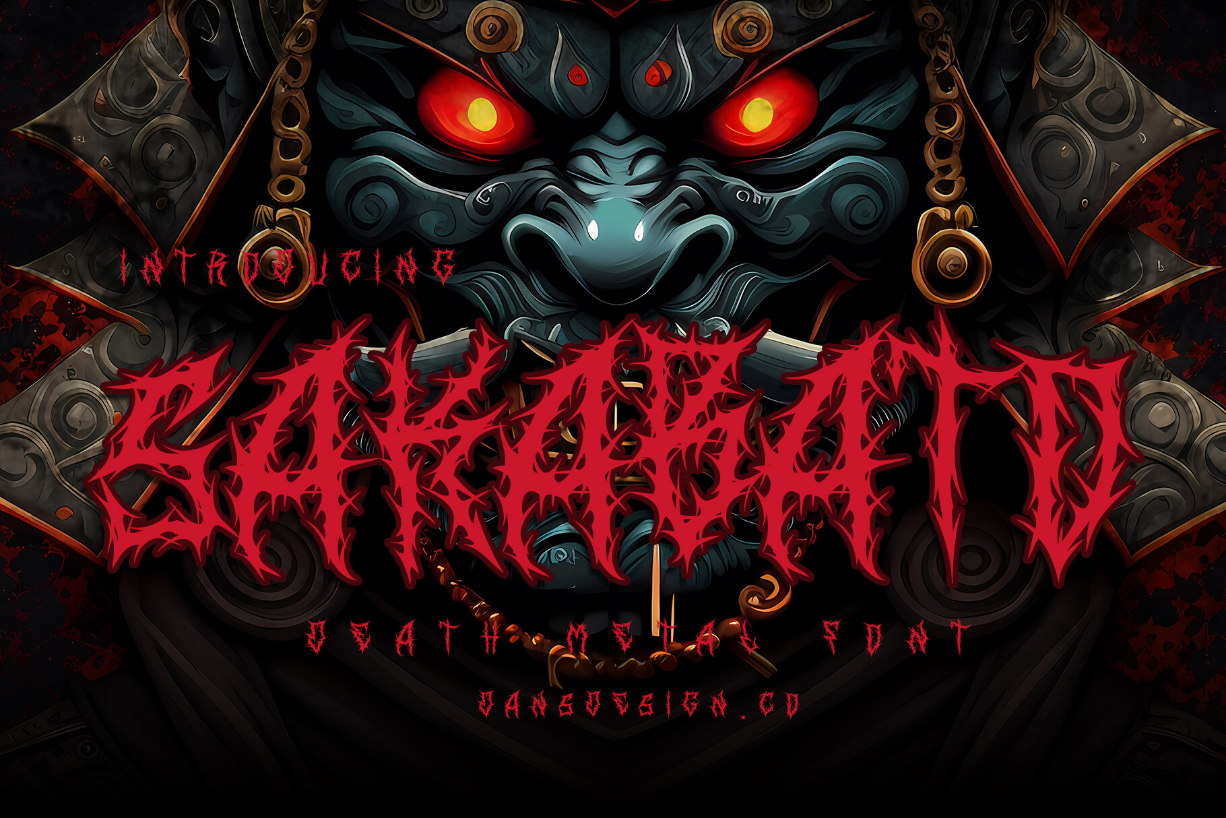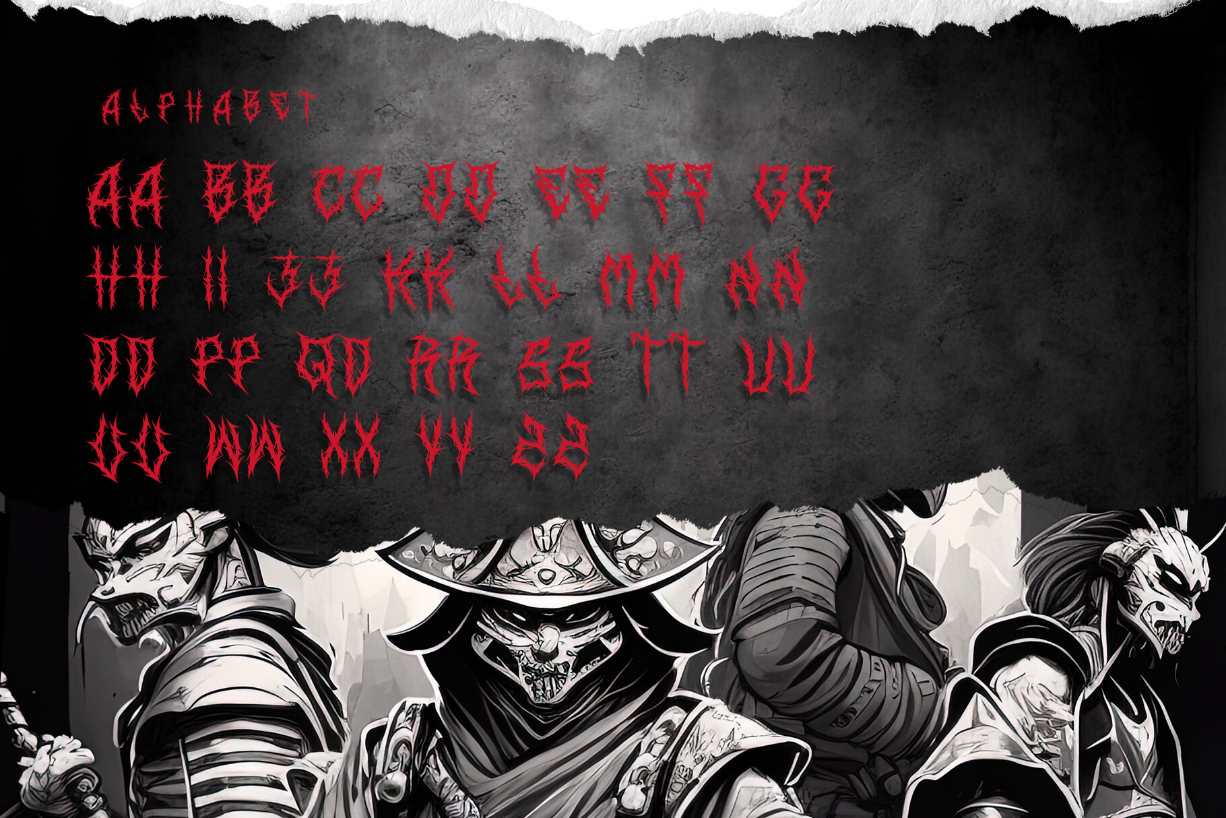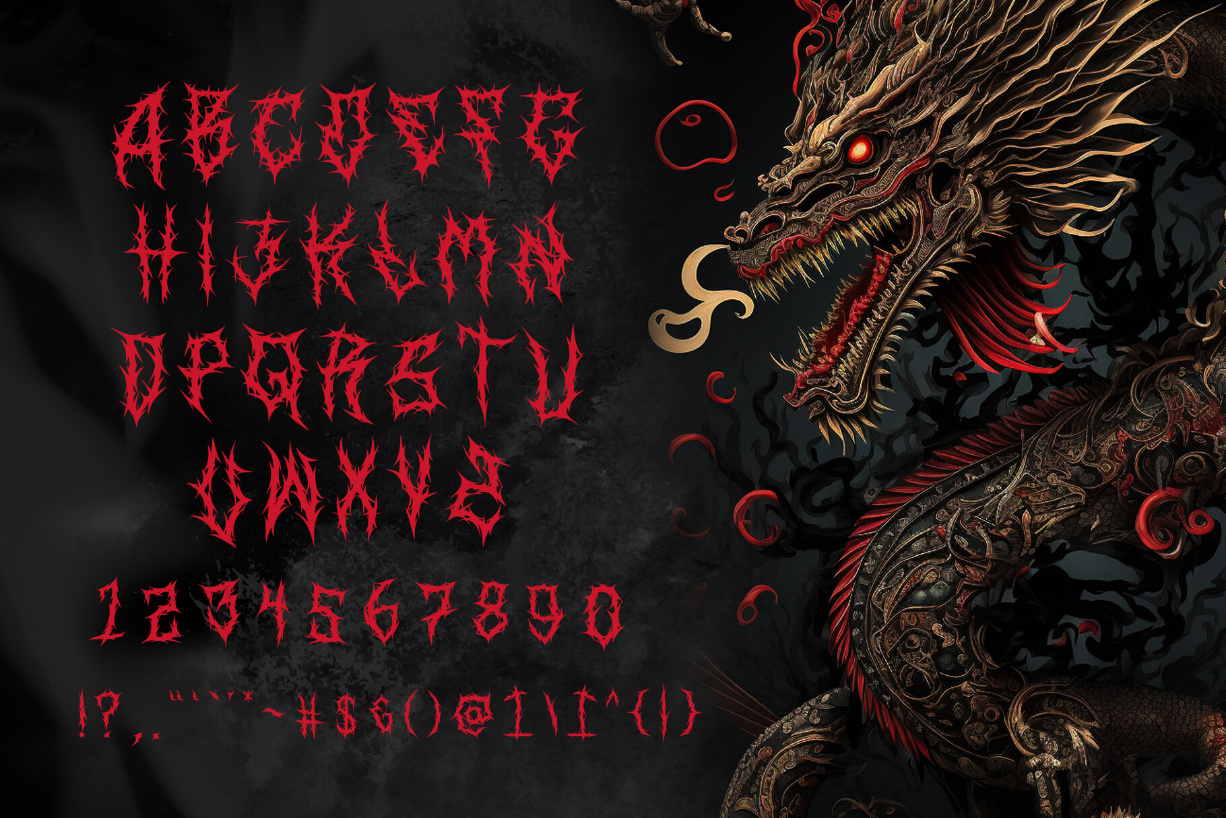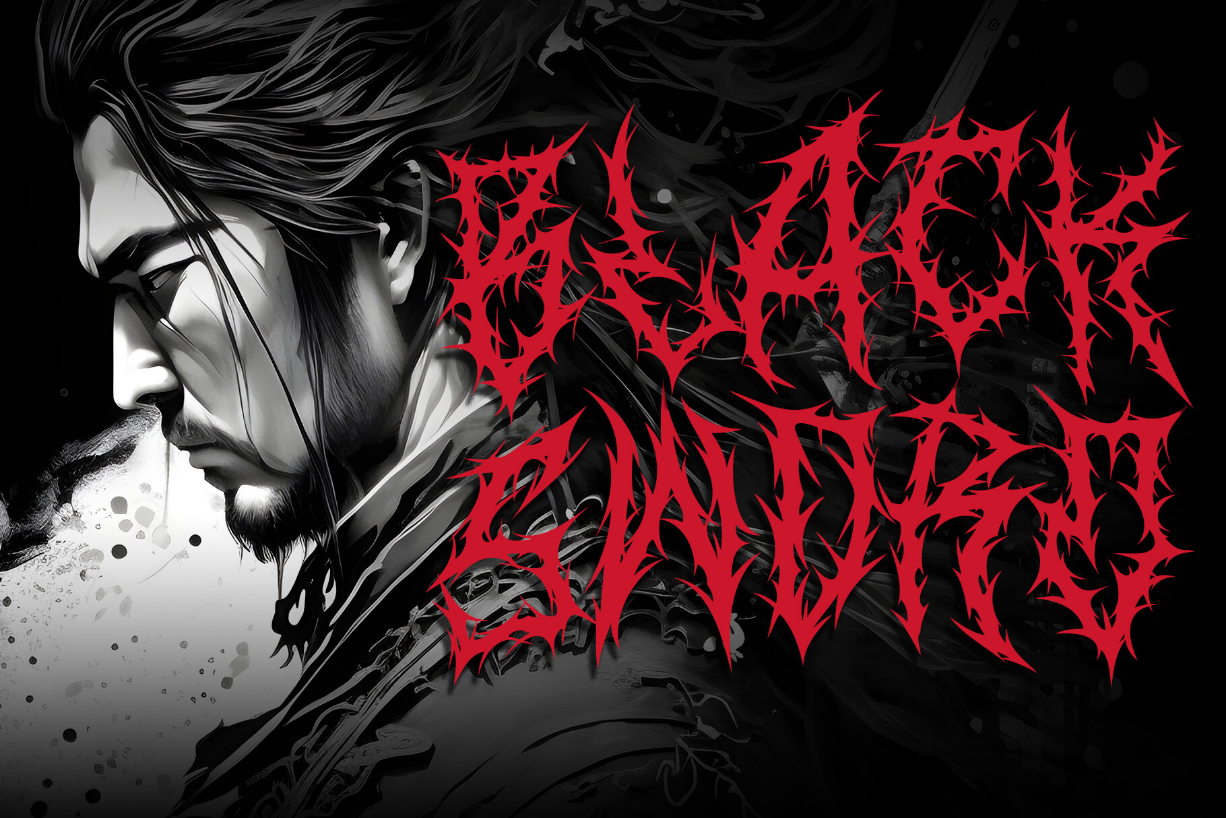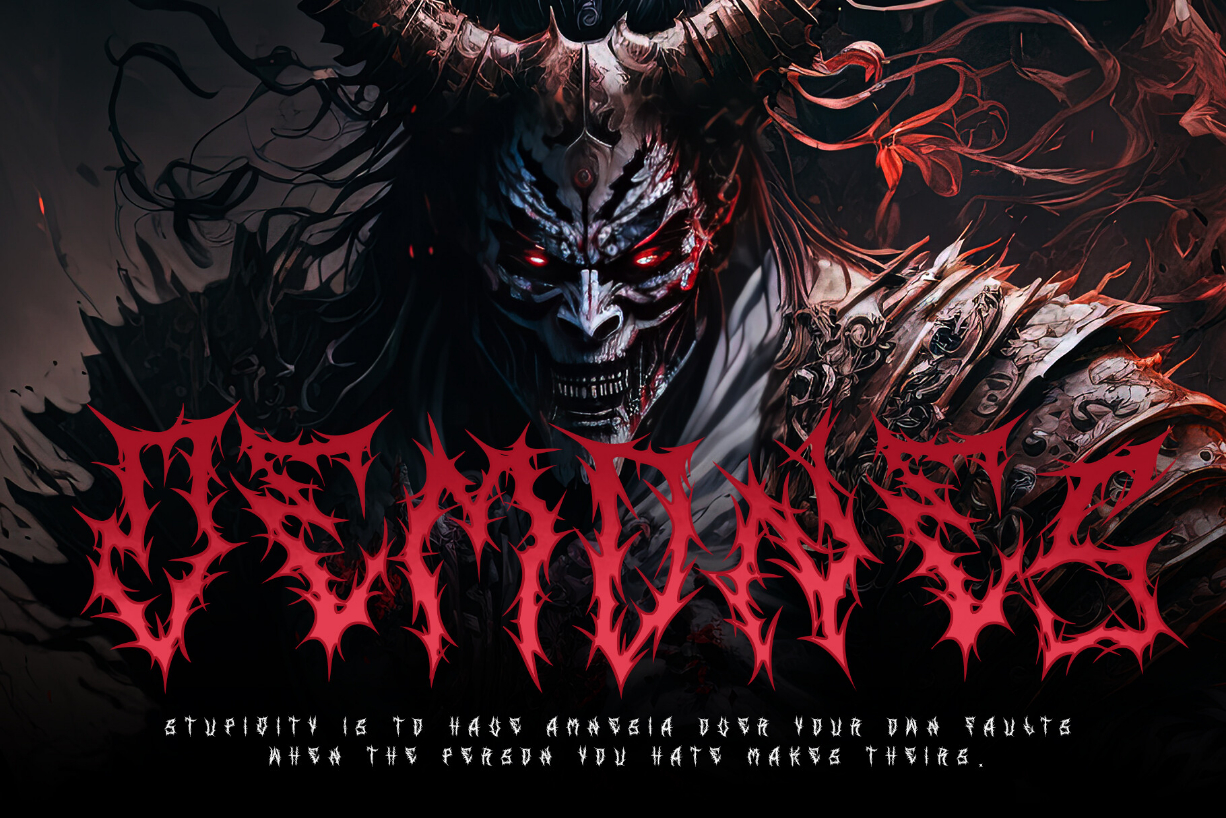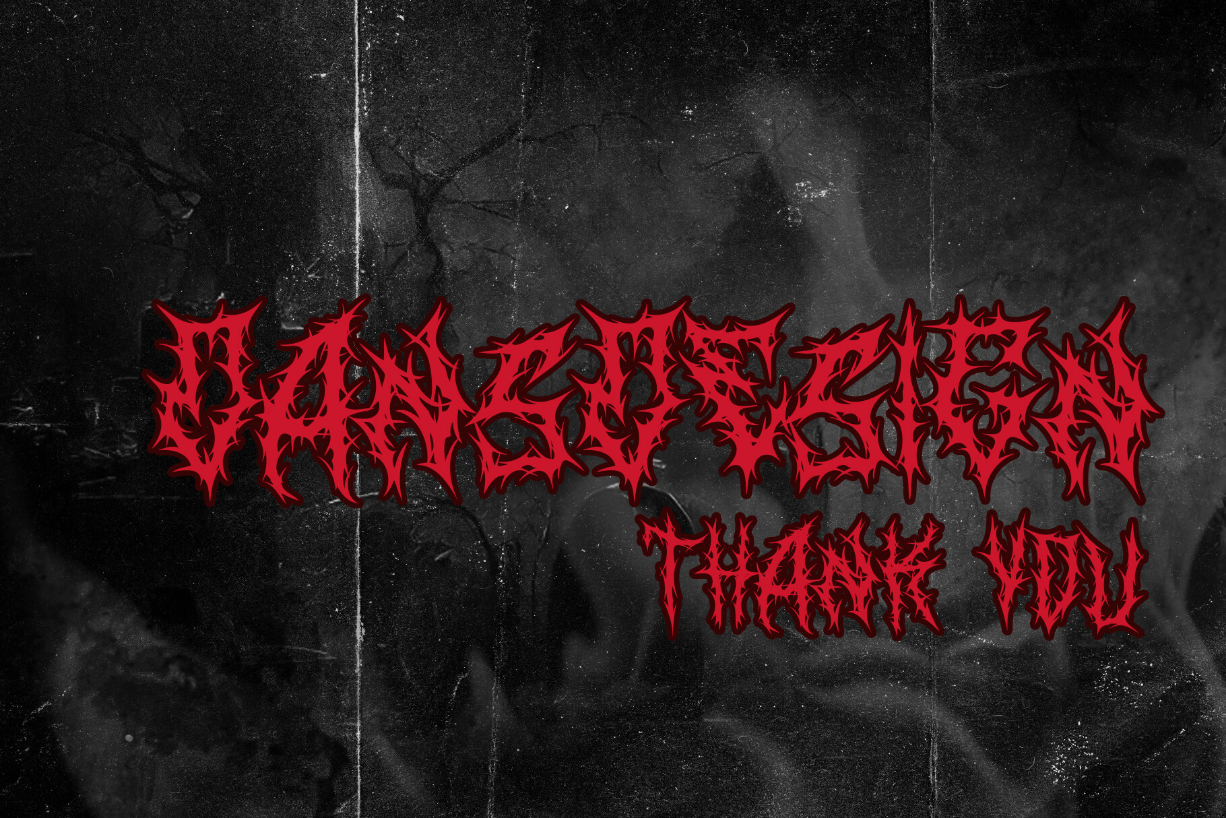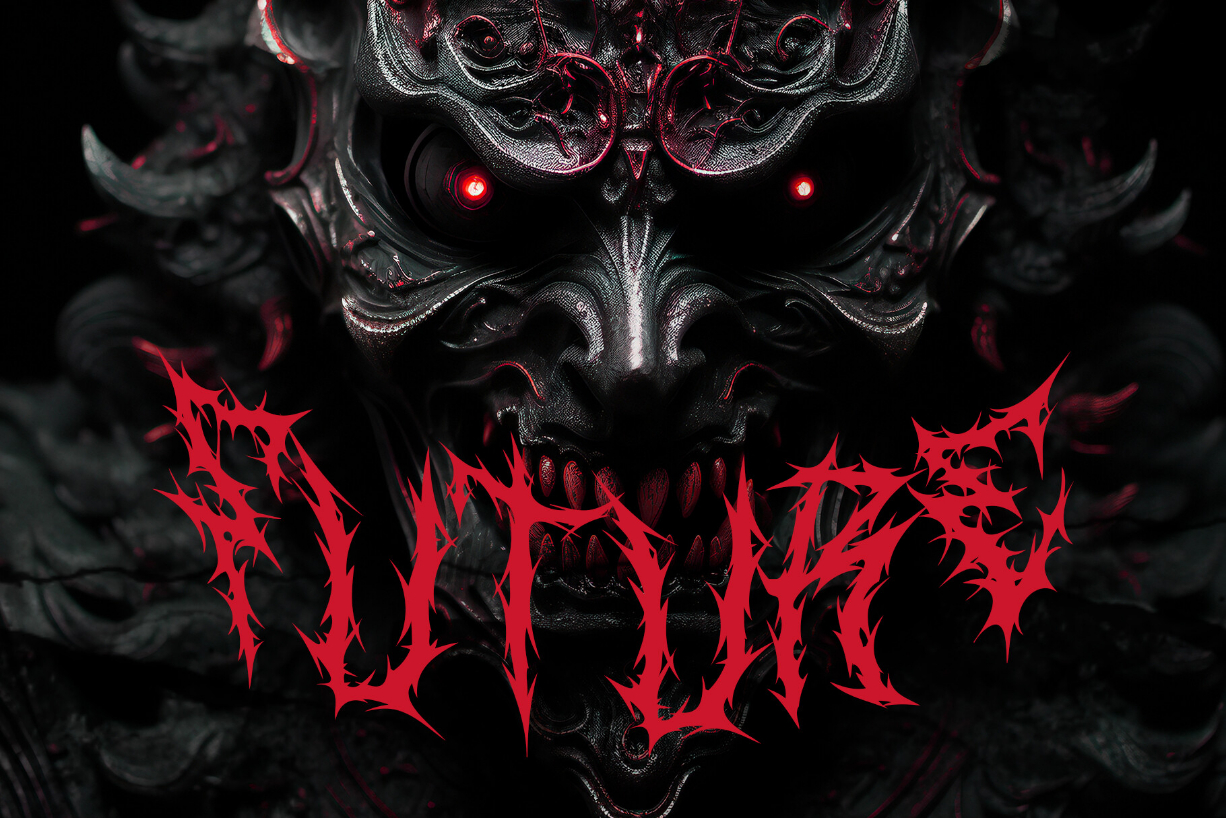
Sakabato Font
About Sakabato Font
SAKABATO METAL BLACKLETTER HORROR is a distinct, highly detailed, Horror Metal Font. It would make a great choice for exquisite Music, Posters, retro-urban designs, tattoo business branding, logos, vintage designs, and more.